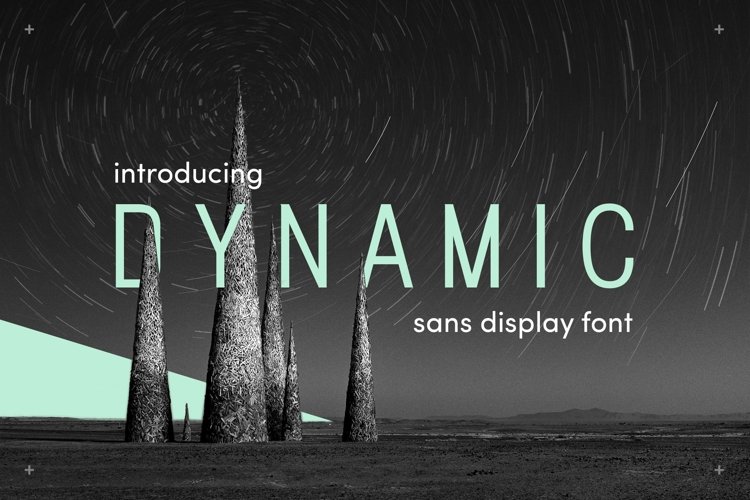
Dynamic is an all-purpose Sans Display Font perfect for all projects. This sleek and durable typeface is firm and reliable and pairs wonderfully with Script fonts.